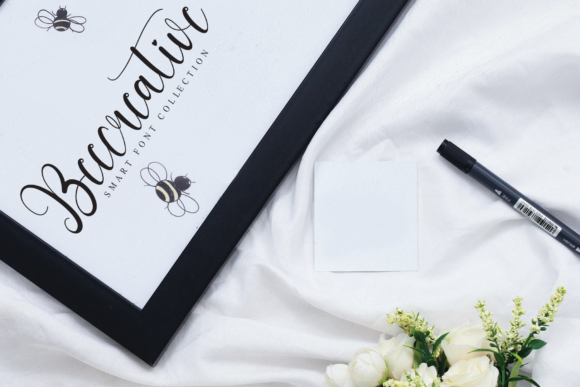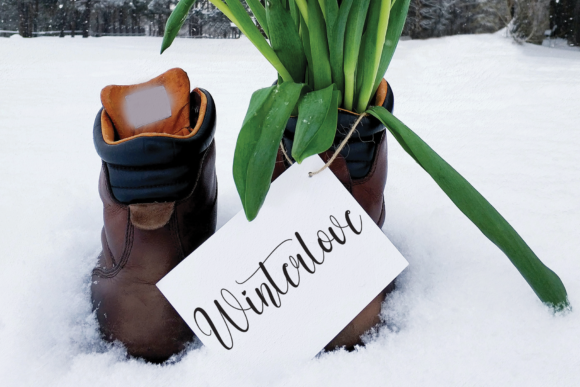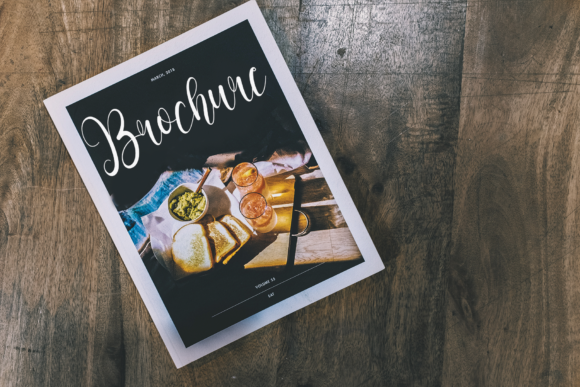
Amstermilk Font
About Amstermilk Font
Amstermilk is a fun and quirky handwritten font, carefully crafted to perfection. It has a stylish personality that will add authenticity and beauty to any design or crafty idea you use it on!